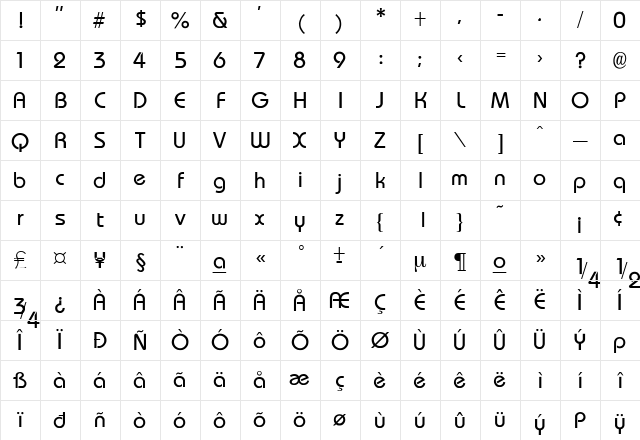
ft4 Regular
Foundry: FT Content Provider
Design Context for ft4
ft4 is a composed and adaptable typeface that performs quietly and consistently across a wide range of design contexts.